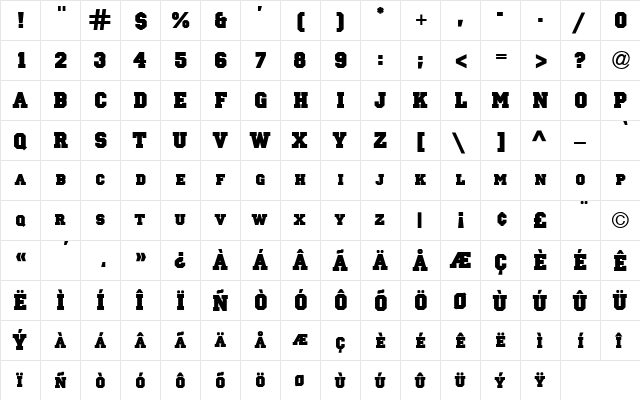
Princetown Solid Regular
Design Context for Princetown Solid Typeface
Princetown Solid takes a measured approach to typography — its balanced proportions and neutral character make it a reliable workhorse for both digital and print work.